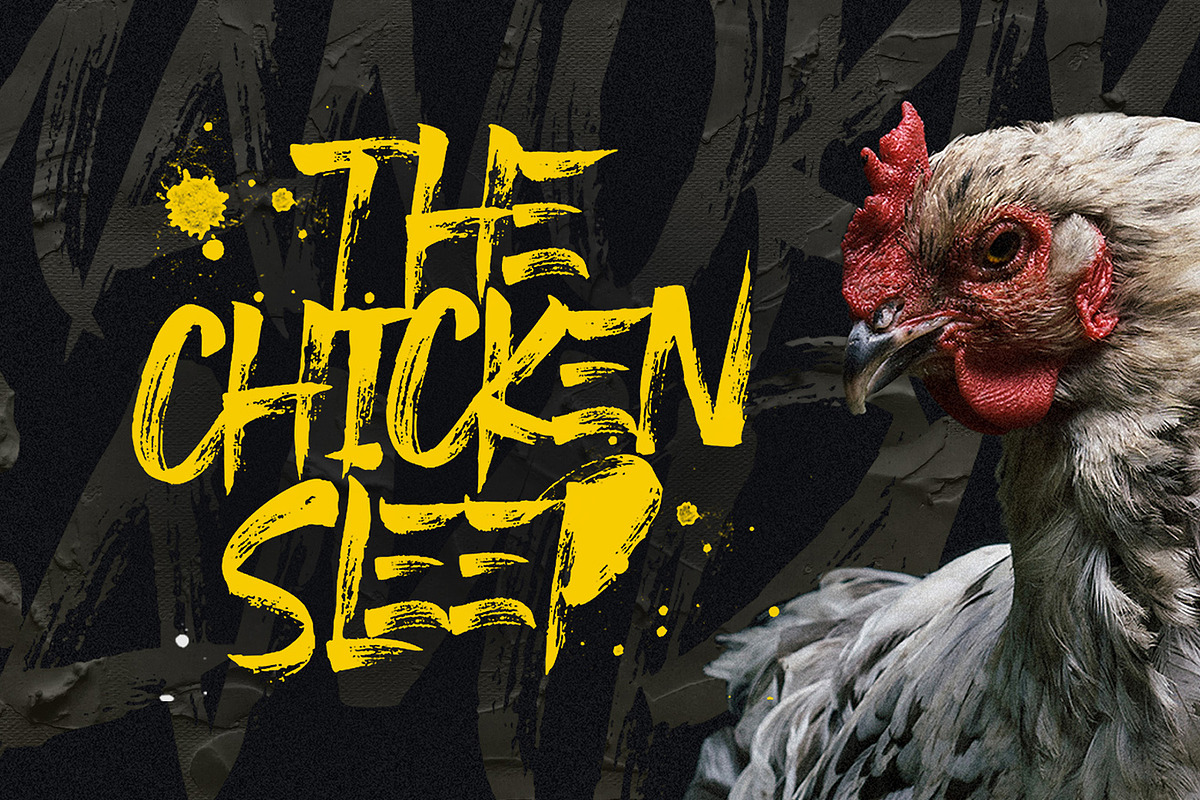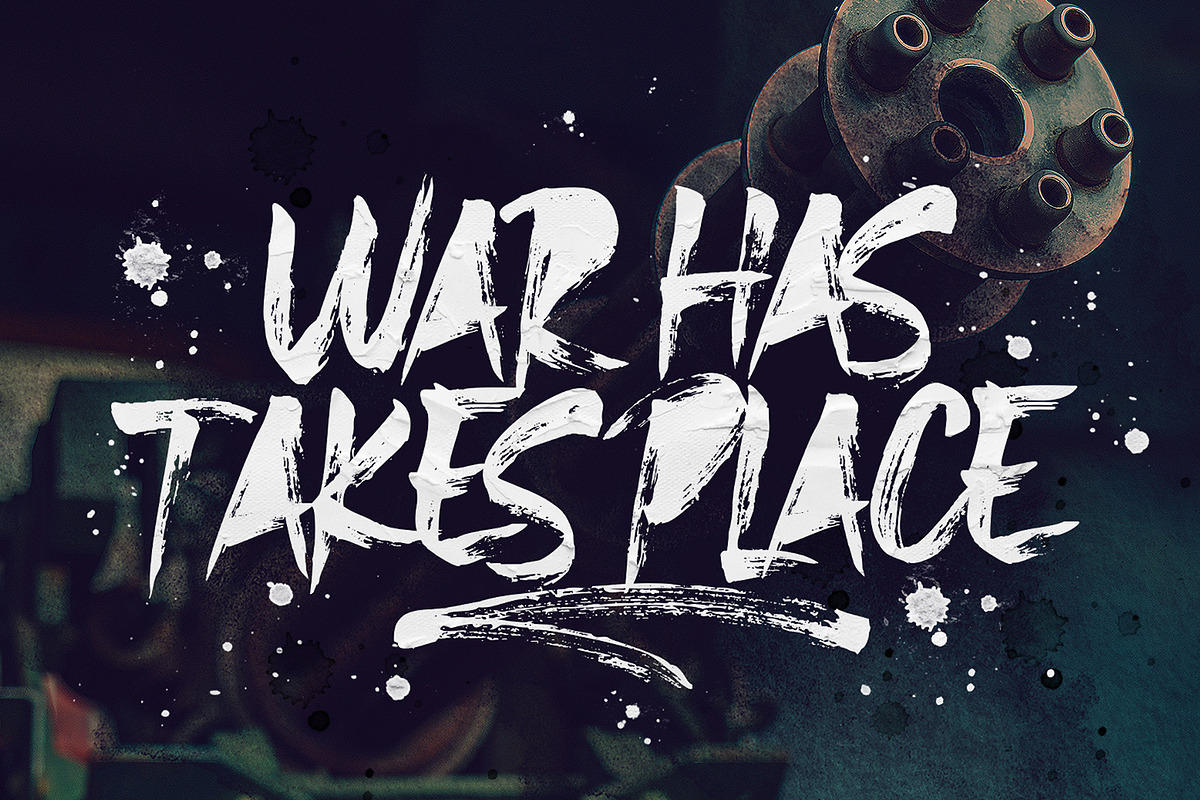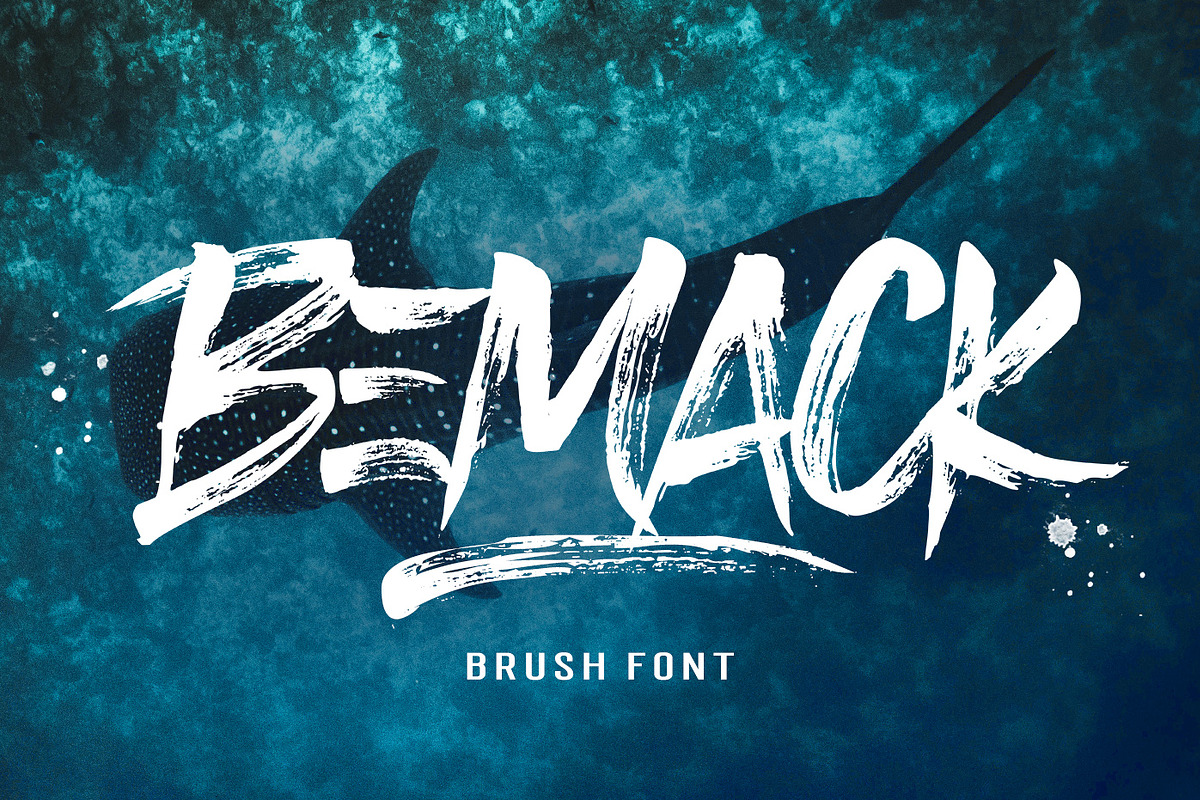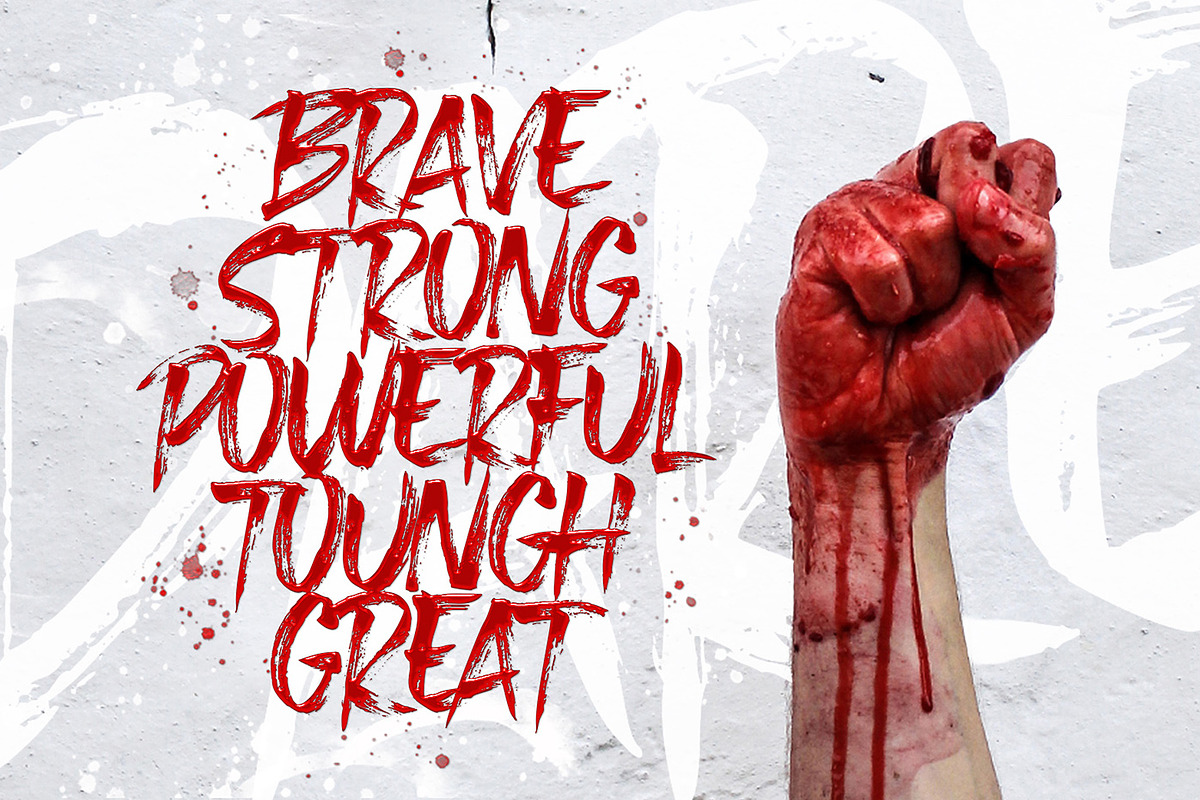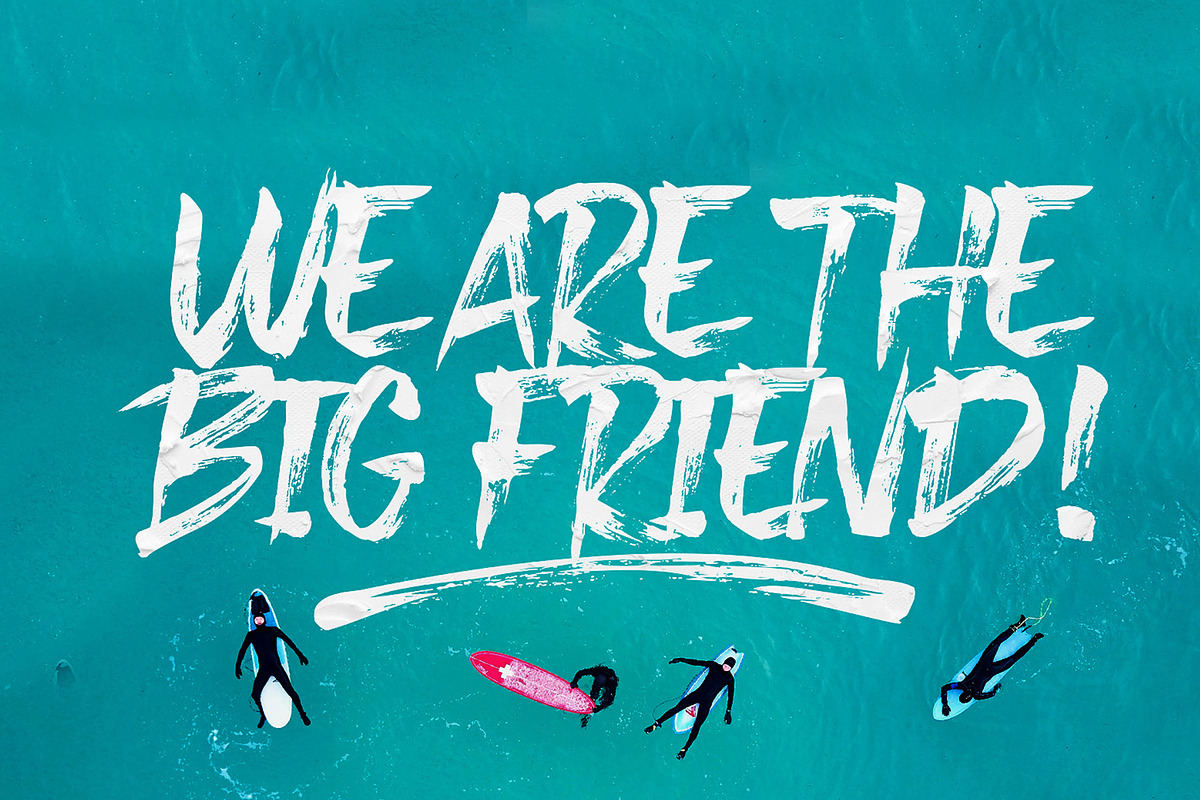
Bemack Brush Font
BEMACK is handwritten made with a brush pen, this font will tear through your text with unmistakable energy, dynamic and spontaneous flow. To help you create stunning custom handwriting displays.
BEMACK comes with alternates character, ligature, punctuation, numerals. Also included is a bonus extras swashes, handmade designed to perfectly for headlines and short texts. Use it for magazines, t-shirt, packaging, logos, advertising, quotes, branding, posters, editorials, cover artwork, movies, websites, etc
- BEMACK comes with alternates character, ligature, punctuation, numerals.
- Also included is a bonus extras swashes, handmade designed to perfectly for headlines and short texts.